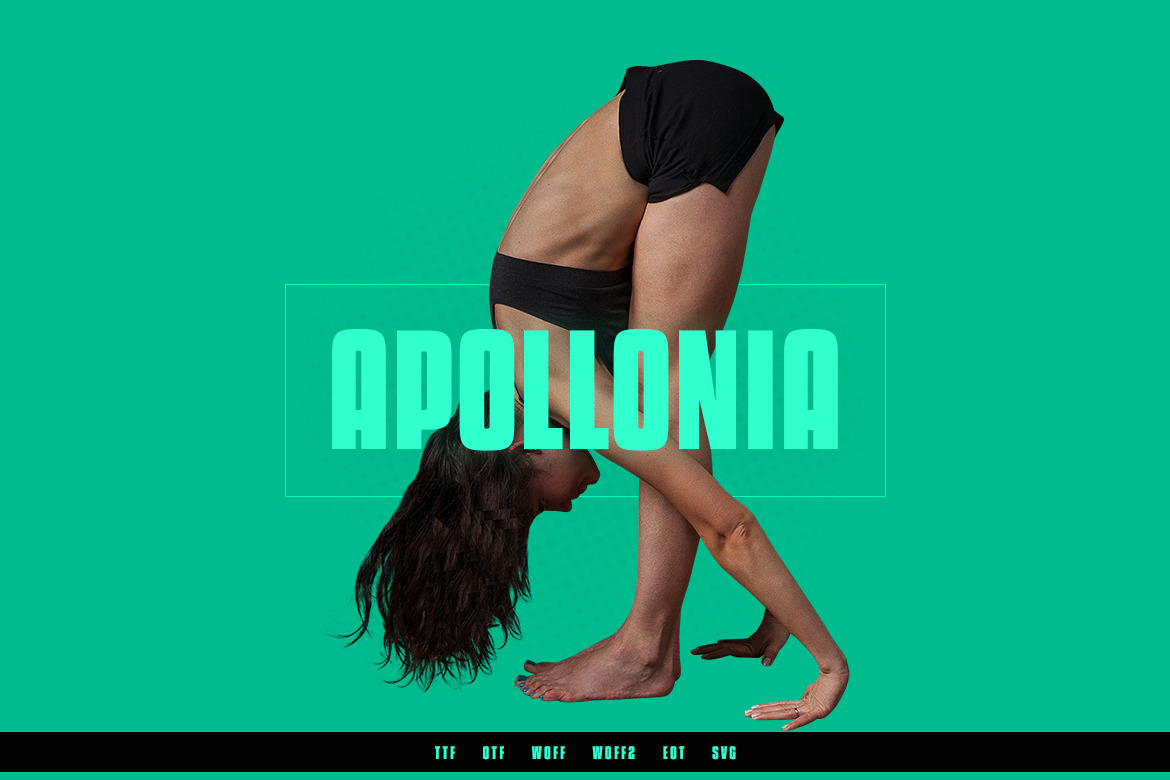
Apollonia - Modern WebFont
Apollonia Pro Typeface
Apollonia Pro is a modern Sans Serif typeface very much suitable for Film Posters, headlines, Block letter, Subheading, Logo Designs, Big Banners. Classic & Decorative Typography Web Designs.
Apollonia Pro is perfectly suited for eye-catching headlines. Its clean appearance and mid-weight make it a wonderful candidate for being paired with more decorative, elaborate subheading fonts.